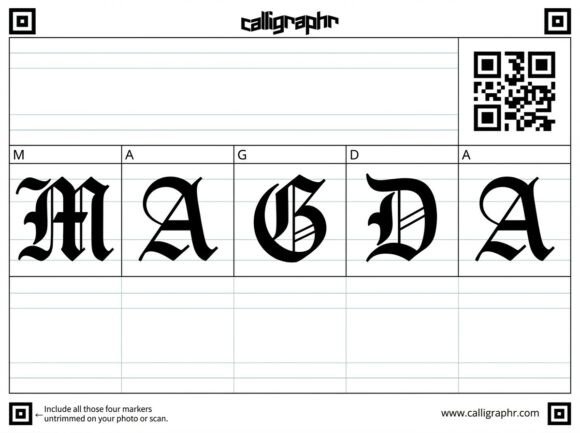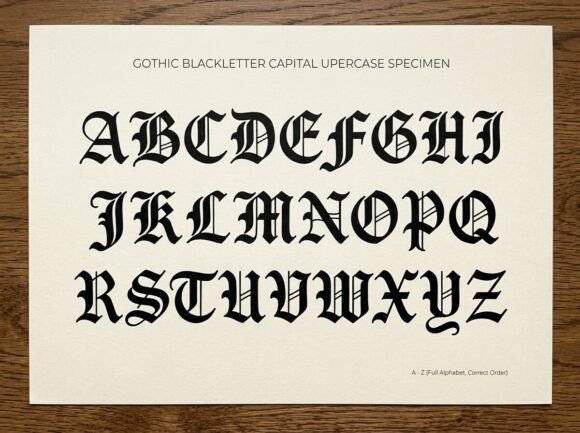
Introduction to Magda Font
“Elevate your creative projects with a decorative display font designed to be the centerpiece of any layout.
With its distinct artistic elements and strong character, it is perfect for creators who want to break away from the ordinary From bold headlines to creative branding and packaging delivers a high-end, professional aesthetic without compromising on personality.
Key Features of Magda Font